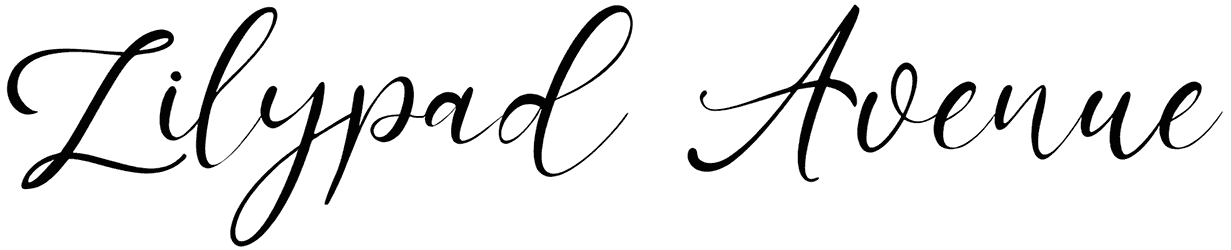
Lilypad Avenue Font
Invite your friends to the gathering by using a delicate script font, and also decorate your invite with a smooth and vintage font like the Lilypad Avenue.
Then try this feminine font on Photoshop, gift boxes, accessories, and feminine projects to see the magical result of the Lilypad Avenue font. Moreover, you can combine this with a blocky font to see the mesmeric paradox of this design.